Imagine stepping into a world where the elegance of the Victorian era meets the imagination of futuristic machinery—this is the essence of steampunk.
The allure of steampunk design lies in its ability to transport you to an alternate reality, where gears, cogs, and steam power coexist with refined aesthetics. Central to this unique style are steampunk fonts, which bring this fascinating world to life on the page. Whether you're working on a vintage-inspired poster, a branding project, or a quirky book cover, the right steampunk font can elevate your design from ordinary to extraordinary.
In this guide, we’ve curated 25 of the best steampunk fonts that will add a dash of retro-futuristic flair to your creative projects. Get ready to explore the world of swirling letters, metallic finishes, and ornate typography that defines steampunk design.
1. American Whiskey (For purchase)
American Whisky is a font that is hard not to enjoy. It is a cool font that mixes modern and old Western styles. It supports different languages and is in all capital letters. This makes it perfect for big, bold important headings. You can use it in steampunk designs for many different things like logos, t-shirts, posters, steampunk labels, badges, and book covers.
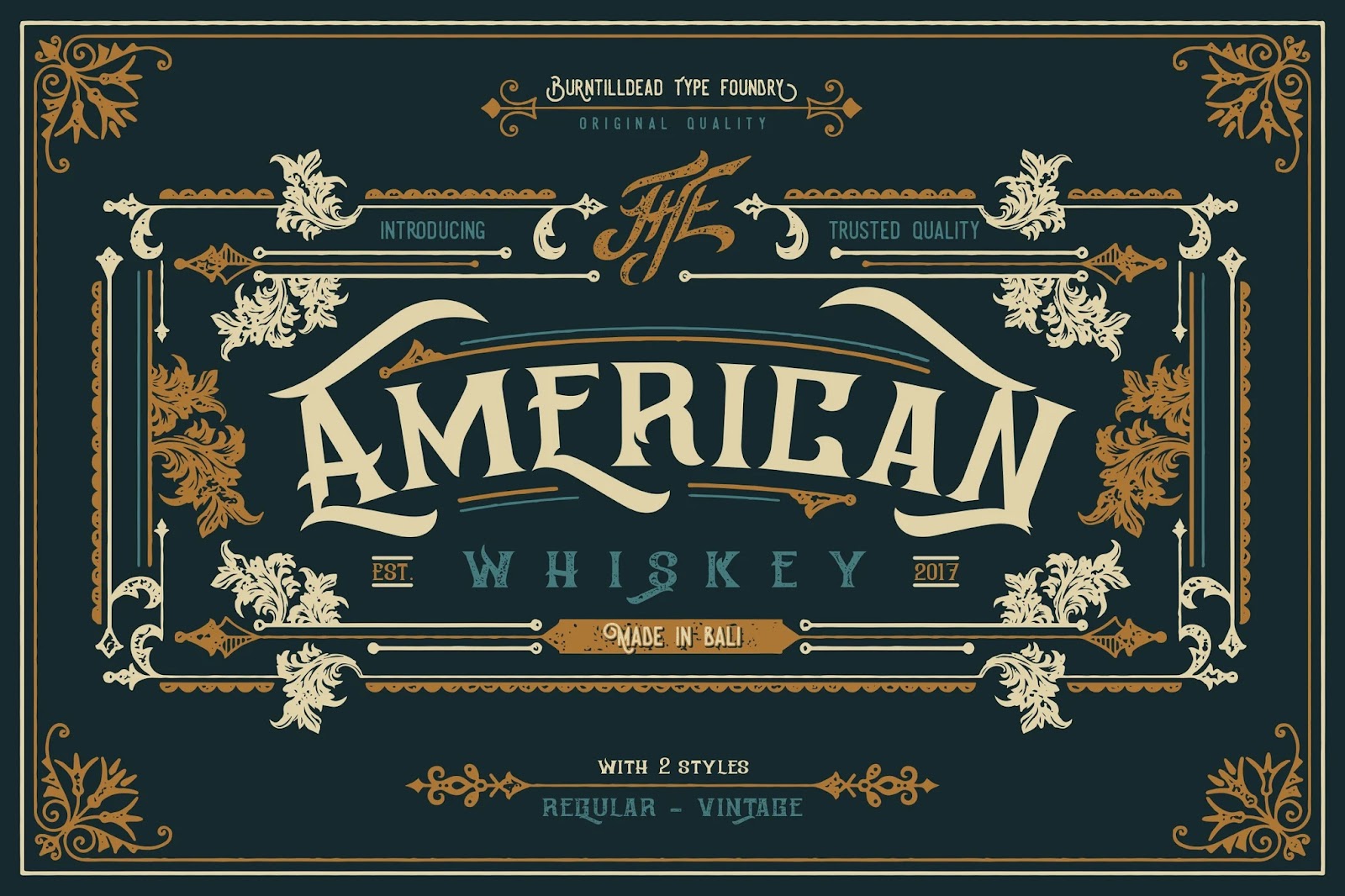
2. Hemera II (Free for personal use)
Hemera II Steampunk font is a cool typeface that shows industrial design in a fancy, vintage way. Its decorative letters work well for all kinds of creative projects.
You can use Hemera II for things like vintage posters, book covers, party invitations, and even branding for businesses that love retro-futuristic vibes.
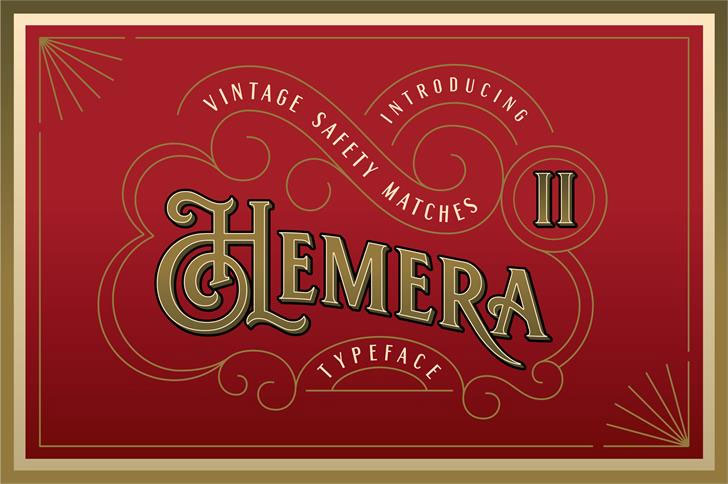
3. Steampunk by Marta van Eck (Free for personal use)
This steampunk font has a really cool, gear-like design, making it a top choice for projects inspired by the Wild West. This free steampunk font is perfect for personal projects and comes with capital letters.
If you get the full version of this fabulous steampunk font, you’ll also get numbers, lowercase letters, and extra symbols, including characters for Polish and German languages.
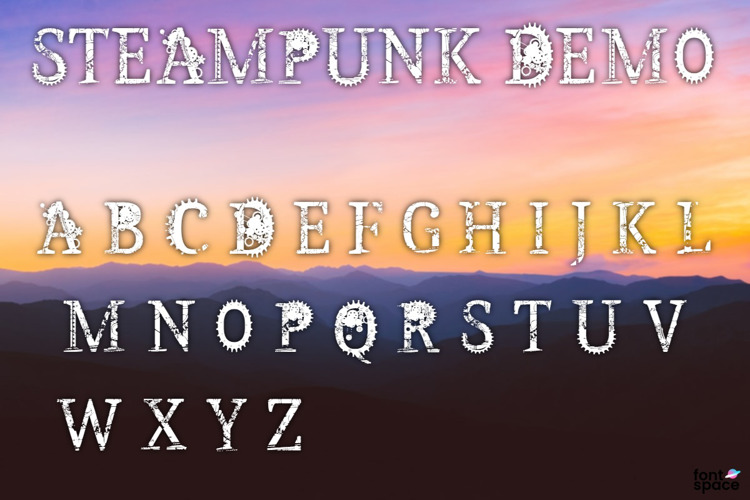
4. S&S Amberosa (For purchase)
S&S Amberosa has a steampunk aesthetic but is unique in a few ways. It captures the spirit of late 19th-century America with a side note of arts and crafts. This steampunk typeface is a great change from regular fonts. You can use this font for any design that needs a historical touch, like steampunk labels and tattoo studios.
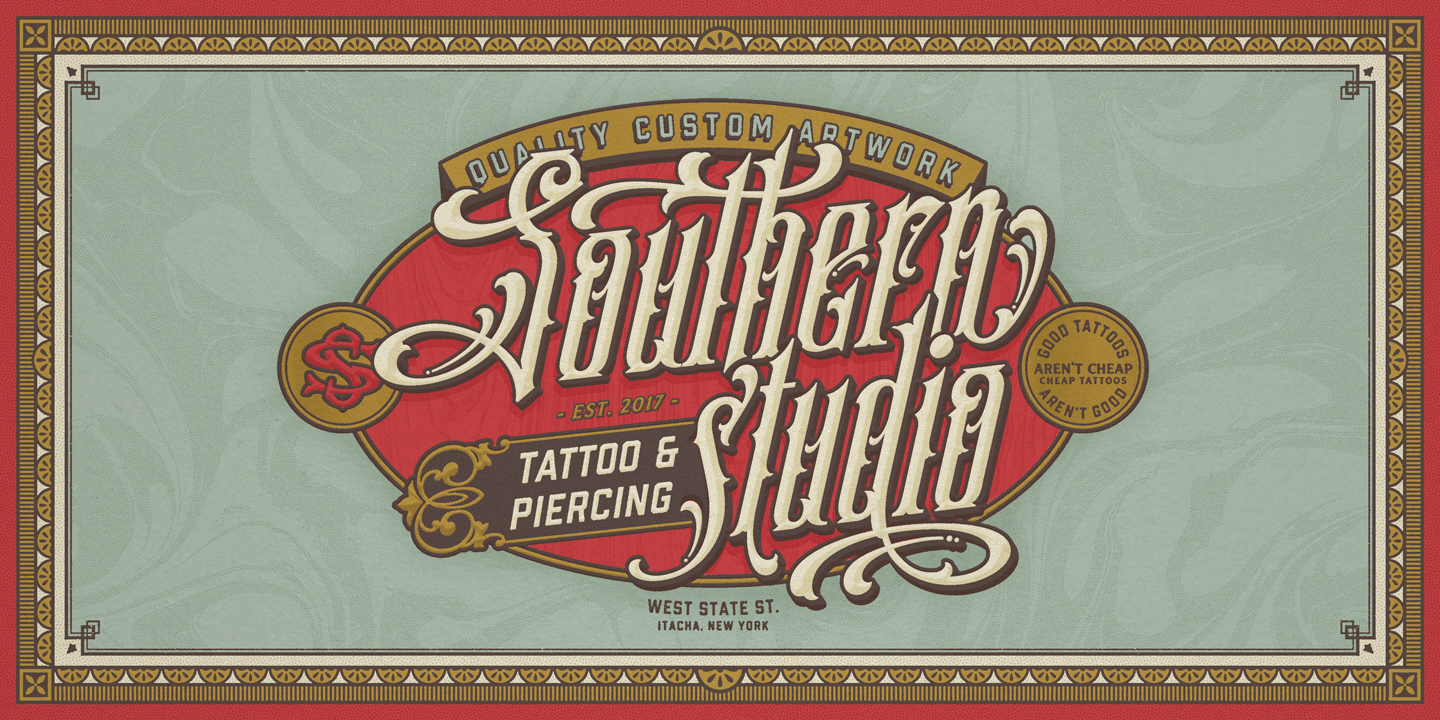
5. Patina (For purchase)
This font blends vintage with a modern twist. It offers two steampunk fonts.
The regular and rough styles feature crisp, clean letters, while the textured finish of the rough style adds a unique character.
If you are looking for a classic but modern feel, then this is an excellent choice for social media design, branding, and web design.
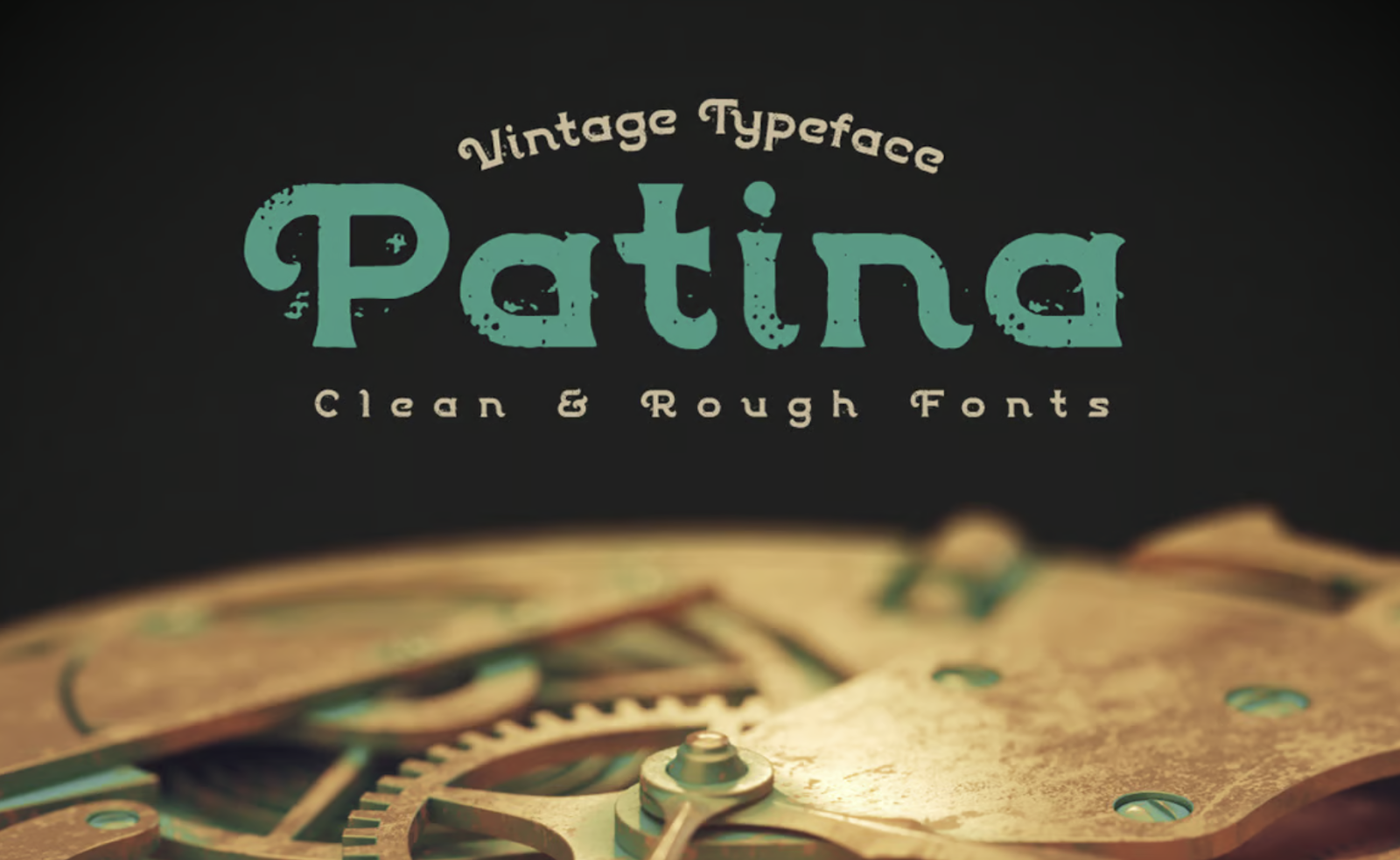
6. Steampunk Slab Serif (Free for personal use)
If you don’t want to go all-out steampunk in your designs, steampunk slab serif has a more subtle vibe to it. This free steampunk font is great for brands that want to keep it slightly professional while still showing some fun and innovative designs. The font is still highly legible, with the most noticeable design being the S character.
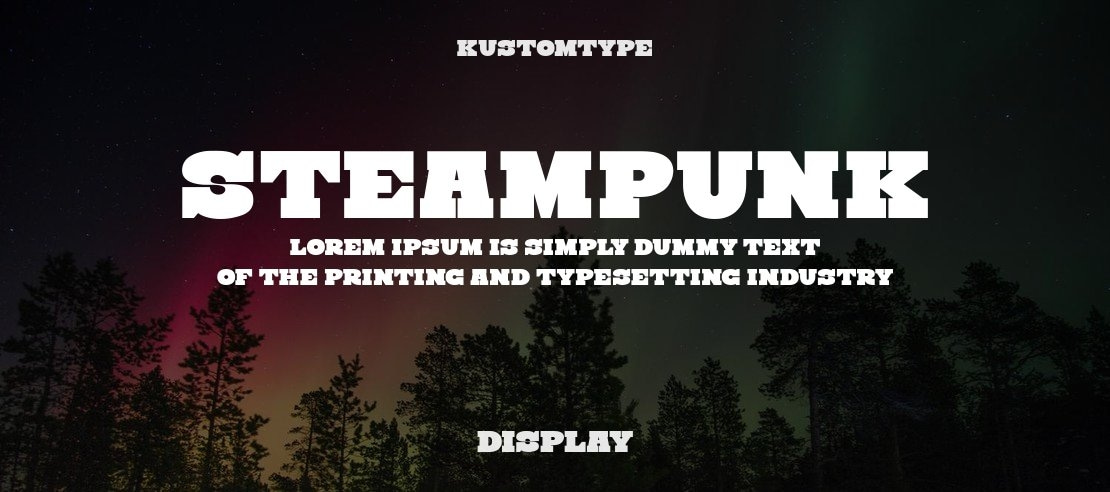
7. Royal Signage (For purchase)
Royal Signage has steampunk lettering with old sign art. It has unique uppercase letters, which add some class to your designs. It also comes with 40 extra vector ornaments to give your design an artistic flare. This is a more classic steampunk design for a font that would be familiar with most viewers.
9. True Black Typeface (For purchase)
True Black typeface strikes the perfect balance between being clean but also slightly rough around the edges. With this vintage steampunk font, you will also receive some decorative elements as a bonus. Additional decorative elements are very helpful when using your font for brand purposes, as you can easily continue to create a cohesive identity beyond your font design.
9. Forest-Display (For purchase)
Forest is a bold, retro serif font that comes in three steampunk styles: Regular, Outline, and Shadow. It’s flexible enough for logos, packaging, headlines, and more. This font brings a unique retro vibe to any steampunk-inspired project you can think of. This font is heavy on the details, creating a custom and artistic look.
10. Raven Hell Gothic (For purchase)
Raven Hell Gothic is a steampunk font that has sharp edges and a dramatic flair. This font captures gothic style in a beautiful way. If you want to add some mystery or darkness to your designs this font is a great choice.
You can use it on posters, album covers, book titles, websites, branding, and merchandise.
The font makes a difference, but the design is what counts.